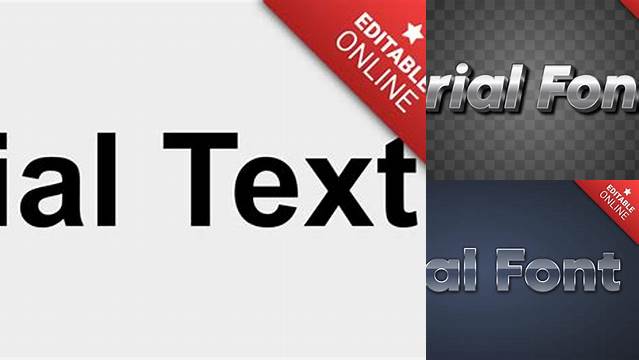
Free Arial Bold Font Generator: Style Your Text Instantly
Hey guys, ever found yourself staring at a plain text document or social media post and thinking, âThis needs a little something extra?â You know, something that screams âlook at me!â without being obnoxious? Well, youâre in luck! Today, weâre diving deep into the wonderful world of the Arial bold font generator free tools available online. These nifty little helpers can transform your ordinary text into something much more impactful and eye-catching. Whether youâre a student sprucing up a presentation, a marketer crafting a killer social media caption, or just someone who likes to make their online presence pop, using a free Arial bold font generator is a game-changer. Weâll explore why Arial bold is so popular, how these generators work, and where you can find the best ones to use without shelling out a single dime. So, buckle up, and letâs get your text looking sharp!
Understanding the Appeal of Arial Bold
So, why all the fuss about Arial bold, right? Letâs break it down. Arial is a sans-serif typeface, meaning it doesnât have those little decorative strokes (serifs) at the ends of its letters. This makes it super clean, modern, and incredibly readable, especially on screens. Think about it â itâs the font you see everywhere, from your operating system menus to websites. Itâs familiar, friendly, and doesnât demand too much attention, which is often a good thing. Now, when you add bold to Arial, youâre essentially giving it a power-up. The strokes become thicker, making the letters stand out more prominently. This added weight is perfect for emphasis. Need to highlight a key point in an email? Want your business name to grab attention on a flyer? Arial bold is your go-to. Itâs not overly aggressive like some other bold fonts can be; itâs strong, clear, and professional. This versatility is a massive part of its appeal. It works across a huge range of applications, from formal reports to casual online chats. The arial bold font generator free platforms leverage this inherent strength and accessibility. They take your regular text and process it through a special algorithm that converts it into characters that look like Arial bold. Itâs a clever workaround that allows you to use this powerful font style even when the standard options might be limited. The clean lines of Arial combined with the impact of bold make it a winning combination for almost any textual need, ensuring your message isn't just seen, but felt.
How Free Arial Bold Font Generators Work
Alright, letâs get a bit technical, but donât worry, itâs not rocket science! You might be wondering, âHow does a free Arial bold font generator actually do that?â Itâs pretty clever, actually. When you type your text into one of these online tools, it doesnât just magically change the font file. Instead, it converts your standard characters into special Unicode characters that visually mimic the appearance of Arial bold. Unicode is this massive international standard that assigns a unique number to every character, symbol, and emoji you see on your digital devices. These generators tap into a subset of Unicode that includes characters with bold styling. So, when you paste the generated text elsewhere, like on Facebook, Instagram, or in a document, the platform displays these special Unicode characters, making them appear as if youâve used a bold font. Itâs essentially a clever form of text art or character substitution. The magic happens behind the scenes, transforming your plain letters into their bold, stylized Unicode counterparts. This is why you can often copy and paste this text into various applications and social media platforms that support Unicode. The beauty of using a arial bold font generator free is that you donât need to download any software or install any fonts. Itâs all done through your web browser. You type, click a button, copy, and paste. Simple as that! This accessibility makes it super convenient for anyone wanting to add a bit of flair to their online communication without any hassle. Just remember that while these characters look bold, they are technically different from actual bold formatting within a word processor. This can sometimes affect search engine optimization (SEO) or how certain systems interpret the text, but for everyday use, especially on social media, itâs a fantastic way to stand out.
Exploring Different Styles Beyond Basic Bold
While our main focus is the arial bold font generator free options, itâs worth noting that many of these tools offer more than just a single bold style. Think of it as a buffet of typographic delights! Beyond the standard bold, you might find options that are even heavier (like extra bold or black), or perhaps italicized versions, or even combinations like bold and italic. Some generators even go wild with more stylized Unicode characters that evoke a bold feel without being strictly Arial. This gives you a whole palette to play with. For instance, you might want a super condensed bold for a tight space, or a wider, more impactful bold for a headline. The key is to experiment! Don't just stick to the first option you see. Click around, try different variations, and see what resonates best with your message and your audience. Remember, the goal is to enhance readability and impact, not to make your text unreadable. A font thatâs too heavy or too stylized can sometimes have the opposite effect. So, use these stylistic variations wisely. Consider the platform youâre posting on, too. What looks great on Instagram might be a bit much for a formal email. The versatility offered by these generators means you can tailor your textâs appearance to fit the context perfectly. So, go ahead, guys, explore the full range of styles available. You might discover a new favorite way to express yourself online, all thanks to these free tools.
Tips for Using Generated Bold Text Effectively
Now that you know how to generate bold Arial text for free, letâs talk about using it like a pro, guys. Itâs not just about making text bold; itâs about using that boldness strategically. Think of it like shouting in a conversation â you only do it for emphasis, right? Overusing bold text, even generated Arial bold, can be overwhelming and actually make your message less impactful. So, first tip: Use it sparingly for key points. Highlight crucial words, important phrases, or calls to action. This draws the readerâs eye exactly where you want it. Second, consider your audience and platform. A bold headline on a blog post might be appropriate, but sending an email entirely in bold Arial might come across as aggressive or unprofessional. Social media is generally more forgiving, but still, a wall of bold text is hard to read. Third, test how it looks. Copy and paste the generated text into the actual platform where you plan to use it. Sometimes, the rendering can vary slightly between different apps or websites. Make sure it looks as intended and remains legible. Fourth, donât rely on it for crucial information if accessibility is a concern. As we mentioned, these are Unicode characters, not true bold formatting. Screen readers or certain assistive technologies might not interpret them correctly. If the information is vital, stick to standard formatting or use the platform's built-in bold option. Finally, combine it with other elements. Bold text looks even better when paired with clear, concise writing, relevant imagery, or other formatting like bullet points. By following these tips, you can leverage the power of a arial bold font generator free tool to make your communication clearer, more engaging, and much more effective. Itâs all about smart application, not just decoration!
Maximizing Readability with Arial Bold
When we talk about arial bold font generator free tools, the primary goal is often to increase the prominence of certain text elements. However, itâs crucial that this enhanced visibility doesnât come at the cost of readability. Arial itself is renowned for its legibility, and its bold variant maintains a high degree of clarity. The thicker strokes in bold Arial help characters stand out against backgrounds and differentiate them from surrounding text. This is particularly important in digital environments where screen resolution and varying lighting conditions can challenge text perception. For instance, when creating headings for a blog post or subheadings in a document, using Arial bold can immediately signal importance and help readers scan the content more effectively. It guides the eye, making it easier to navigate through longer pieces of text. However, the effectiveness of Arial bold in enhancing readability hinges on its appropriate usage. Overdoing it, as mentioned earlier, can lead to a cluttered appearance and hinder the reading experience. Imagine trying to read a paragraph where every other word is in bold â it becomes a visual assault! Therefore, the key is selective application. Use Arial bold to punctuate key terms, introduce new sections, or emphasize critical instructions. The goal is to create visual hierarchy, helping readers quickly identify the most important information without feeling overwhelmed. By mastering this balance, you can ensure that the stylistic boost provided by a free Arial bold font generator genuinely serves to improve comprehension and engagement with your content, making your message both noticeable and easily digestible for everyone.
The Convenience of Online Font Generation
Letâs be real, guys, the sheer convenience offered by online tools is a massive win, especially when it comes to something like a arial bold font generator free. Gone are the days of needing complex software, wrestling with font installations, or paying for premium typographic features. These web-based generators put powerful styling capabilities right at your fingertips, accessible from virtually any device with an internet connection. Whether youâre on your trusty desktop, your sleek laptop, or even your mobile phone, you can whip up some bold text in seconds. Need to quickly add emphasis to a tweet? Want to make your Instagram bio pop? Just pull up a generator, type, copy, paste. Itâs that straightforward. This instant accessibility means you can react to trends, create timely content, or simply enhance your daily communications on the fly. Thereâs no waiting for downloads, no worrying about compatibility issues across different operating systems. The process is designed to be as frictionless as possible. The fact that these services are free adds another layer of appeal. They democratize design, allowing anyone to experiment with typography and improve their digital communication without financial barriers. This ease of use and immediate availability are what make these online generators so incredibly valuable for everyday users, marketers, students, and anyone looking to add a little extra visual punch to their words.
Boosting Social Media Engagement with Bold Text
Social media platforms are all about grabbing attention in a crowded feed, and thatâs where a arial bold font generator free can be a secret weapon. Think about scrolling through Instagram or Facebook â posts with visually distinct elements tend to stop the scroll. Using bold text, especially in your captions, comments, or even your bio, can make your content stand out. For example, you can use bold text to highlight a special offer in a promotional post, emphasize a key takeaway from a story, or simply make your username or a call to action more prominent. On platforms like Instagram, where bio space is limited, using a generated bold font can help your key message or personal brand statement catch the eye of potential followers. It adds a layer of professionalism and visual interest that plain text might lack. When crafting a witty comment, bolding a punchline can amplify its effect. For businesses, using bold text strategically in posts announcing new products or sales can draw immediate attention to the most critical details. Remember, the goal is to make your content more discoverable and engaging. While standard bold formatting is available in some social media interfaces, using generated Unicode bold characters offers a way to achieve this effect where native formatting might be limited or inconsistent across platforms. Itâs a simple yet effective tactic to cut through the noise and ensure your message gets noticed by your audience, potentially leading to more likes, shares, and interactions.
The Nuances of Unicode and Font Generation
Addressing Potential SEO Implications
This is a crucial point, especially for website owners or bloggers: what are the SEO implications of using text generated by a arial bold font generator free? Itâs something we need to discuss, guys. Since this method relies on Unicode characters rather than actual HTML font tags or CSS styling, search engines like Google might not interpret this